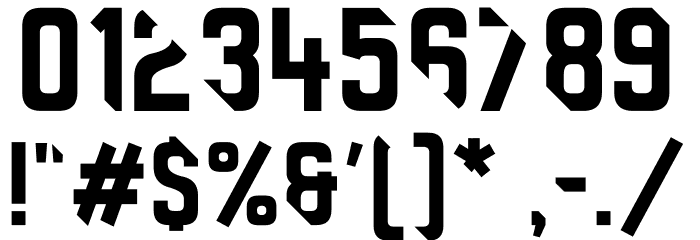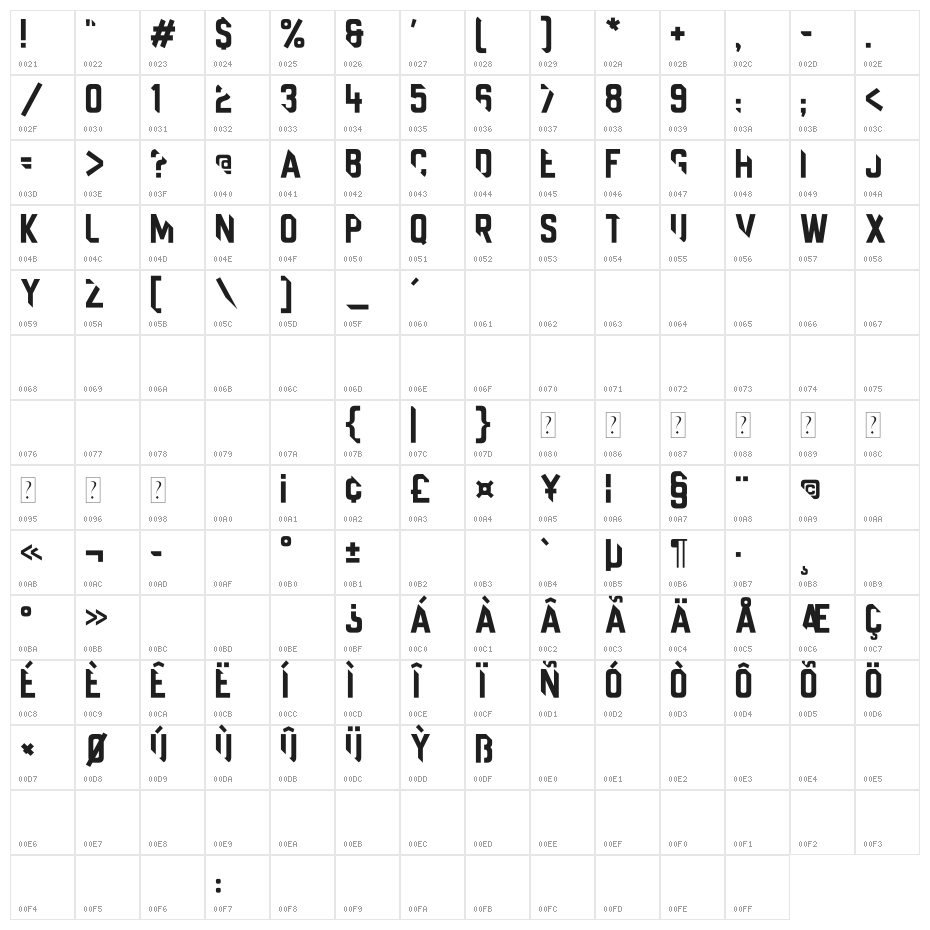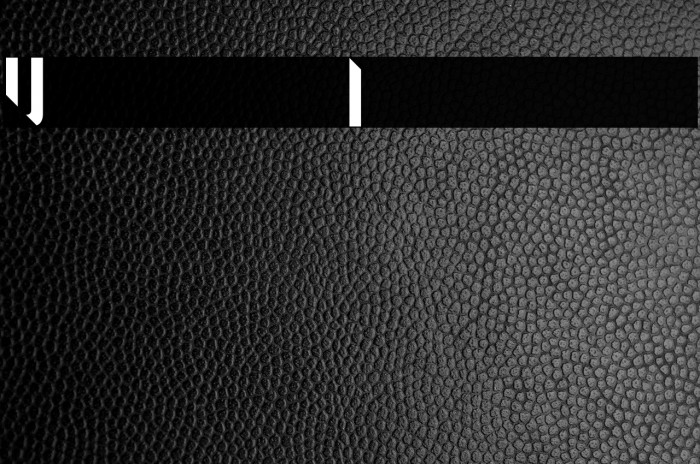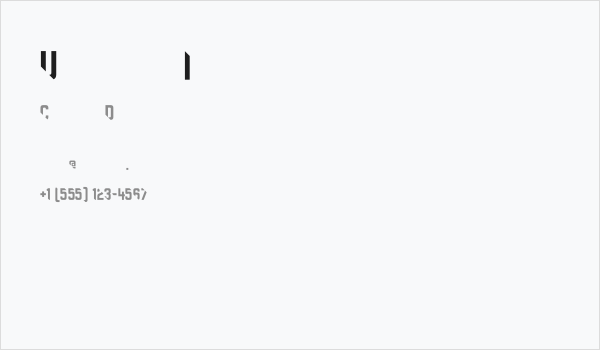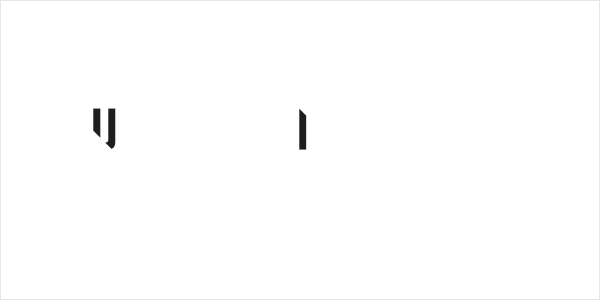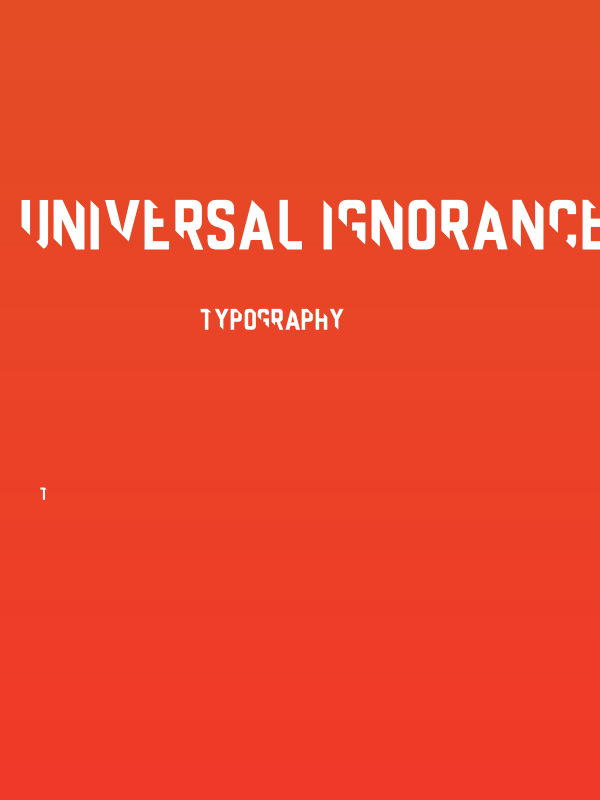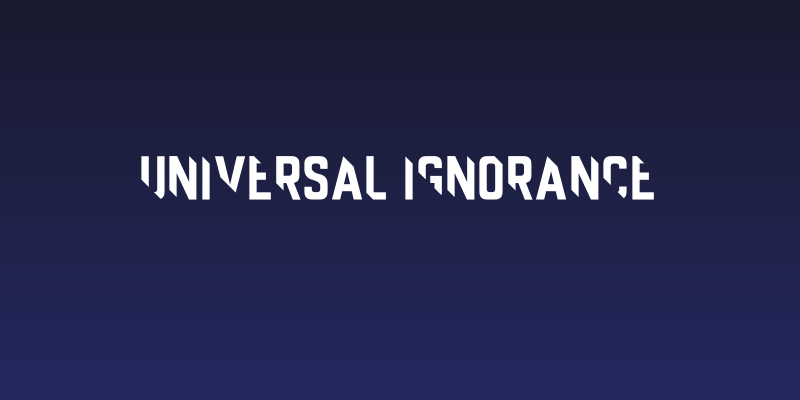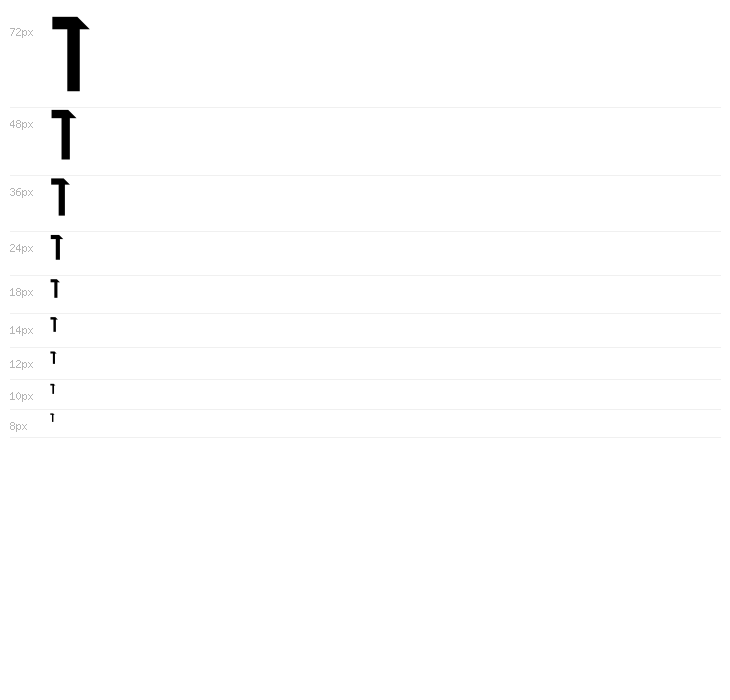
Universal Ignorance Font
Universal Ignorance Description
This font features a bold, geometric design with a modern and edgy aesthetic. The characters are constructed with sharp angles and clean lines, creating a sense of movement and dynamism. The uppercase letters are particularly striking, with unique cutouts that add a layer of complexity and intrigue. The numerals and special characters maintain this bold style, ensuring consistency across all elements. This font's distinct appearance makes it ideal for projects that require a strong visual impact.
| Proposed Projects | Ideal for branding, posters, album covers, and any project needing a bold, modern statement. |